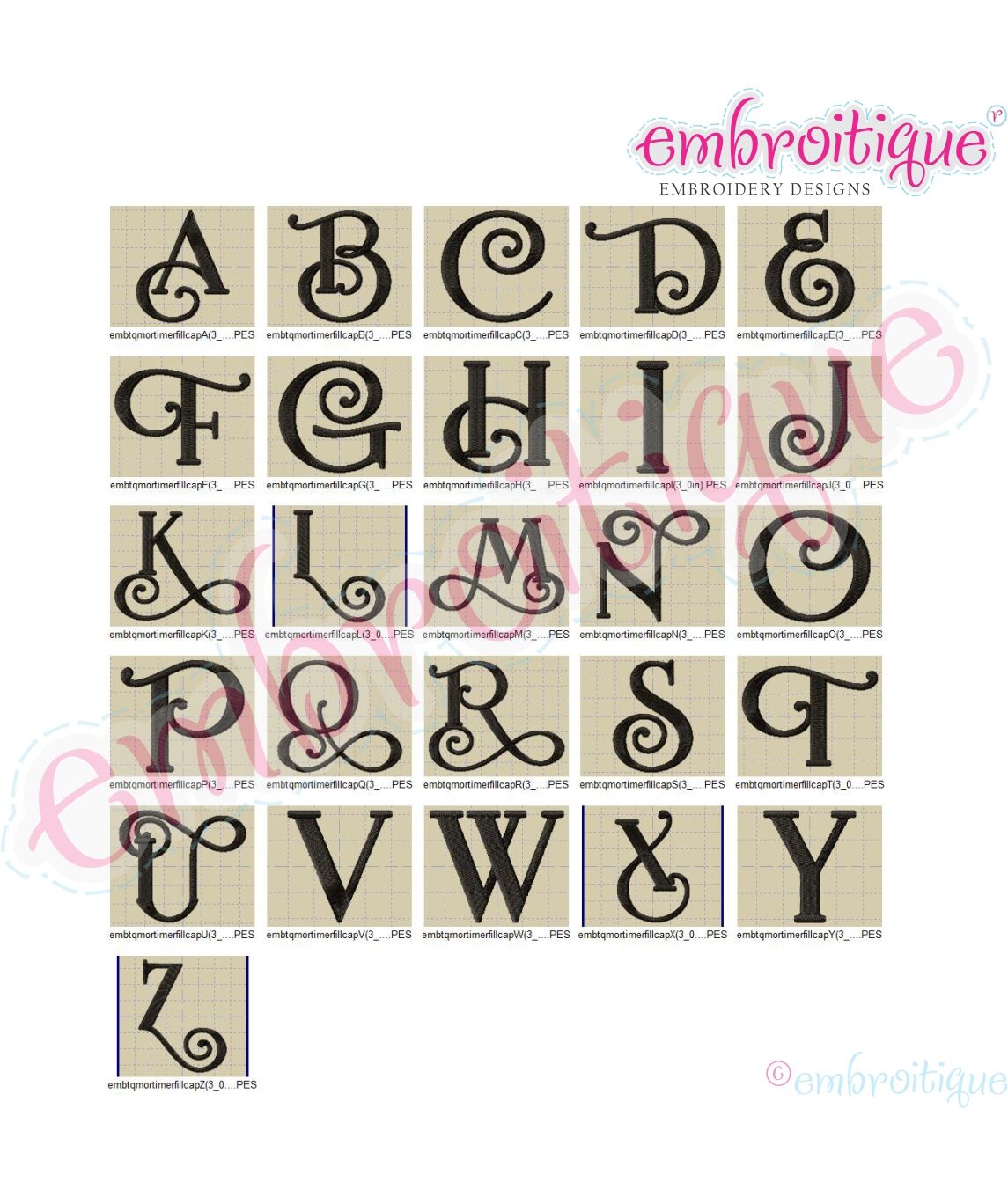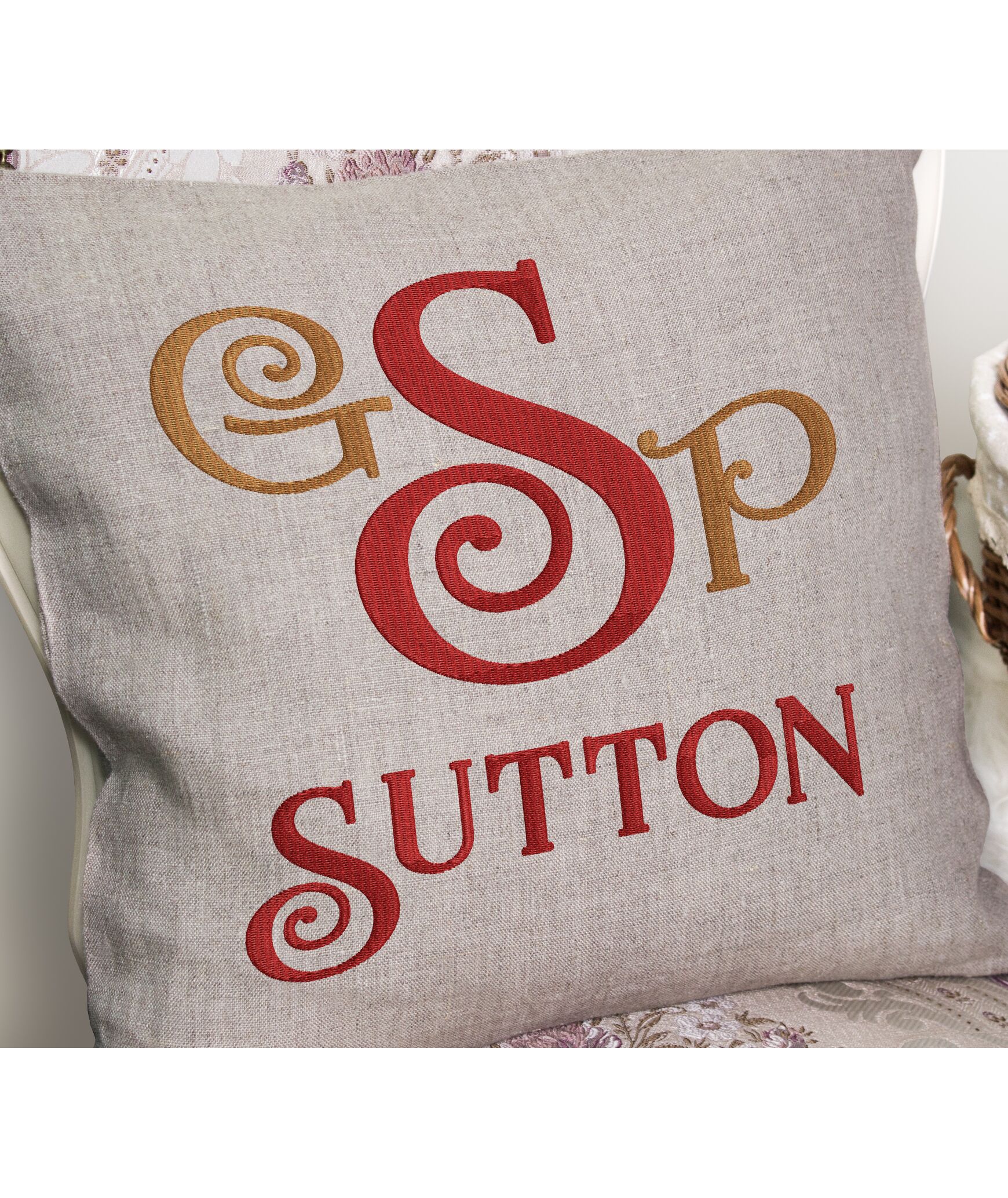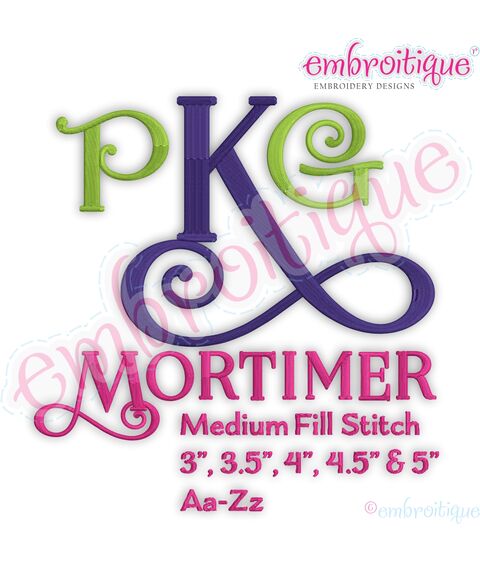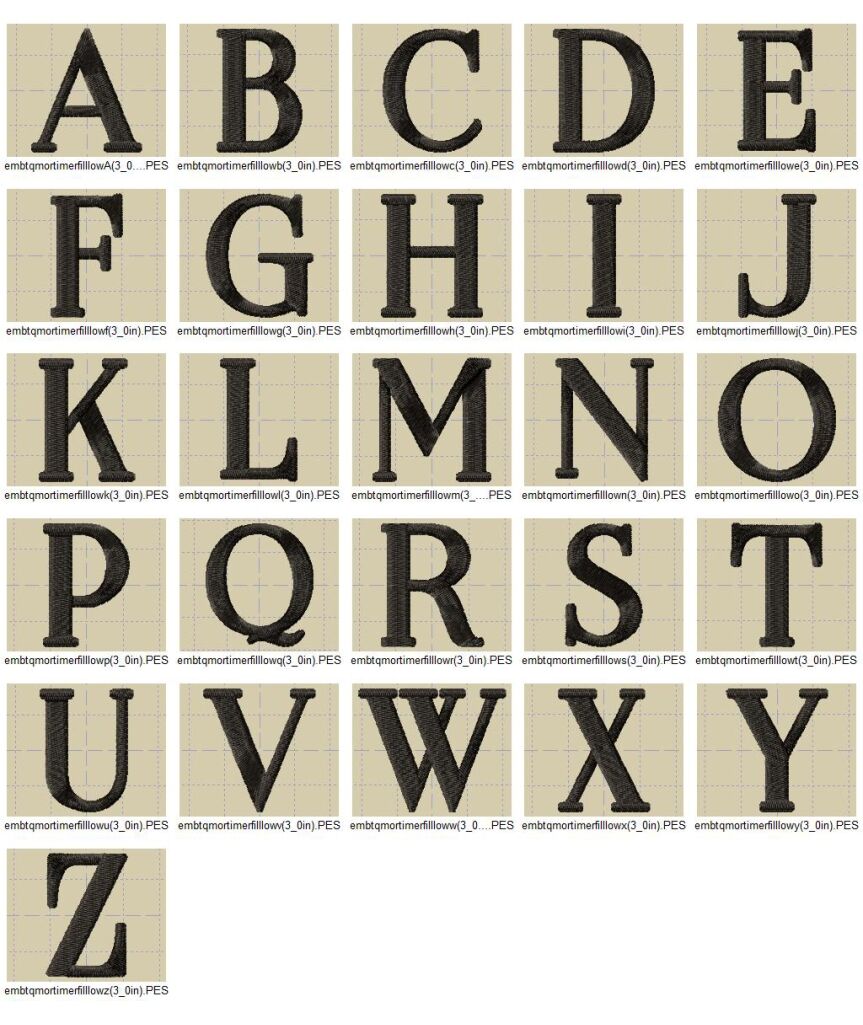
Mortimer Monogram Medium Fill Stitch Curly & Block Font
This a gorgeous fill stitch font that includes both classic and fancy, curly letters for you to create with. It is perfect for home decor projects, monogramming bows, bags, pillows, you name it!